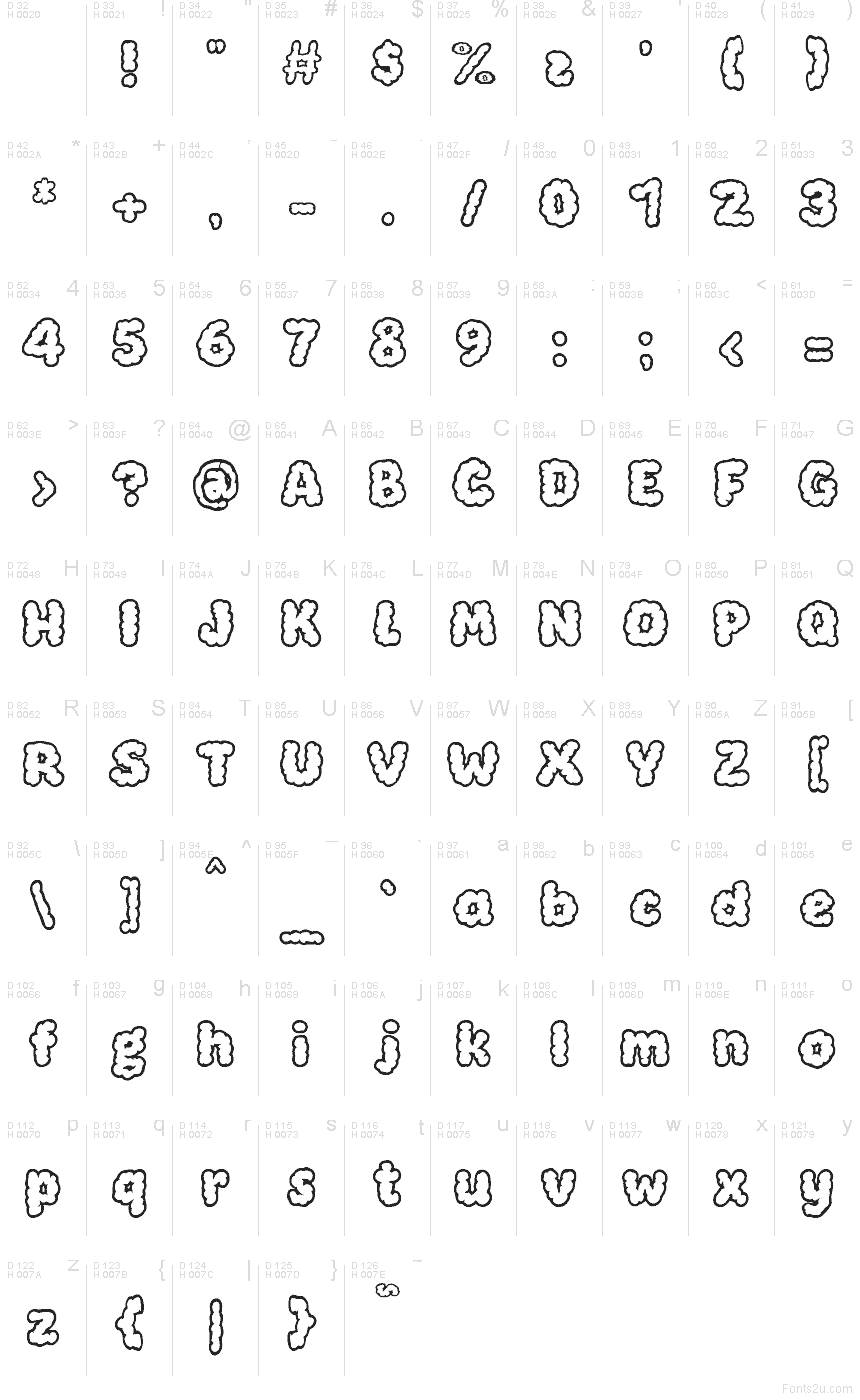
Cloud Sketch font by BlackFridayFont FMF is a free decorative outlined display typeface that looks like it’s been puffed out of soft, doodled clouds. Each letter has a wobbly, hand-sketched outline and pillowy shapes that feel light, bouncy, and a little mischievous, like notes scribbled in the margins of a notebook. The open centers and airy structure keep it readable even when the letters get big and wild.
Using Cloud Sketch, this free font shines on kids’ posters, birthday invitations, toy packaging, playful logos, YouTube thumbnails, and classroom materials. Its bubbly rhythm instantly sets a fun, carefree mood without needing extra graphics. For a clean, grounded look, pair Cloud Sketch for headlines with a simple rounded sans serif for body text, and let this typeface stay large so all those cloud outlines can really breathe.